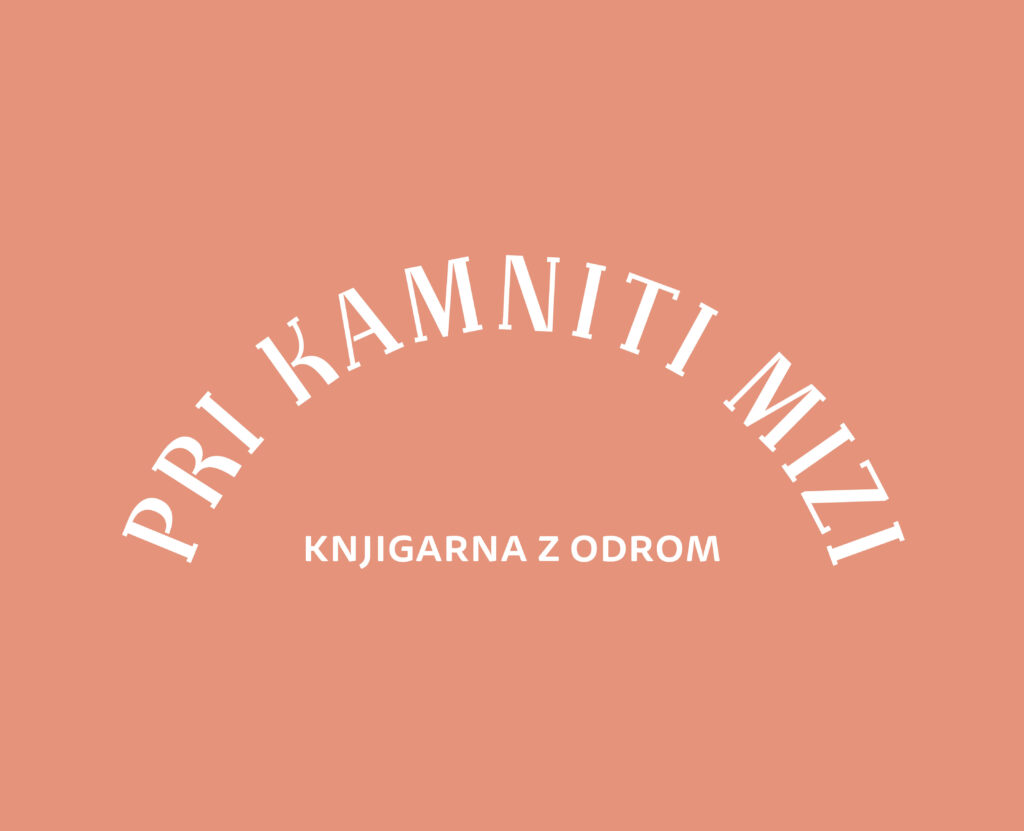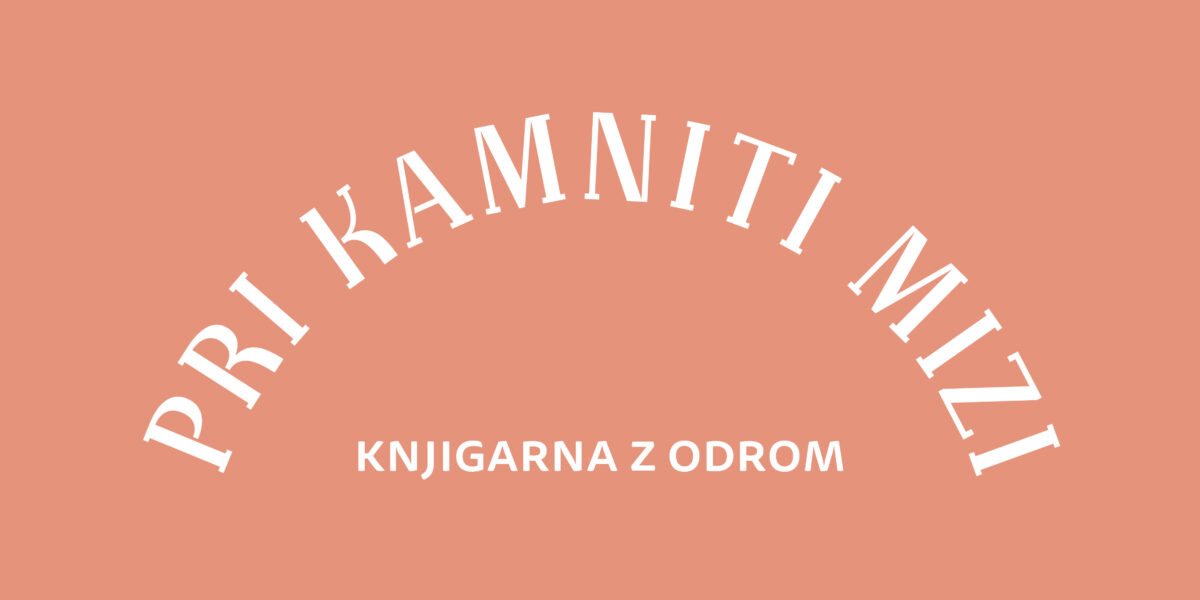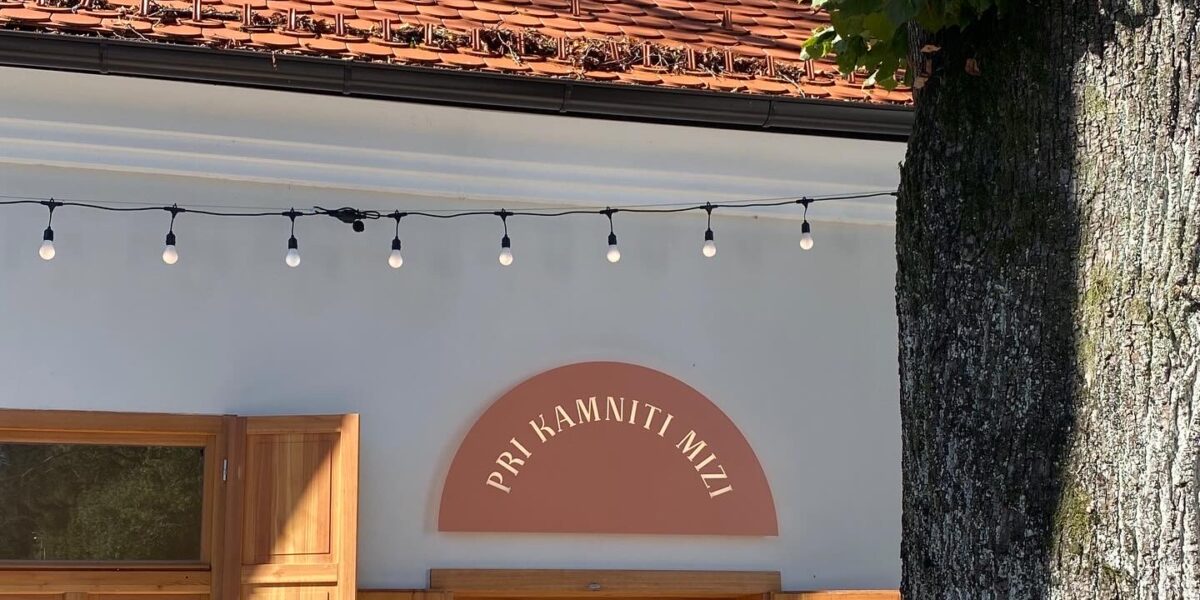
Pri kamniti mizi is stencil lettering designed for signage of building that functions as a bookstore with a stage, hosting events related to literature. The letter forms are referencing carved stone portal above the entrance to the central part of the complex.